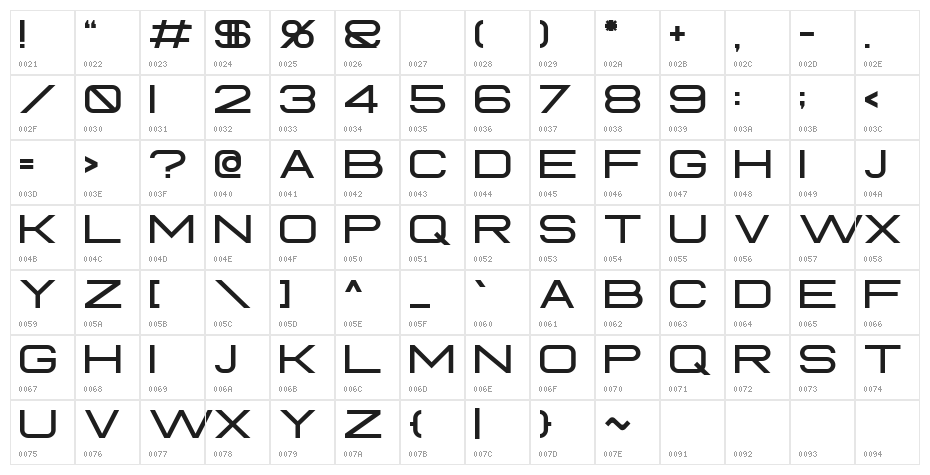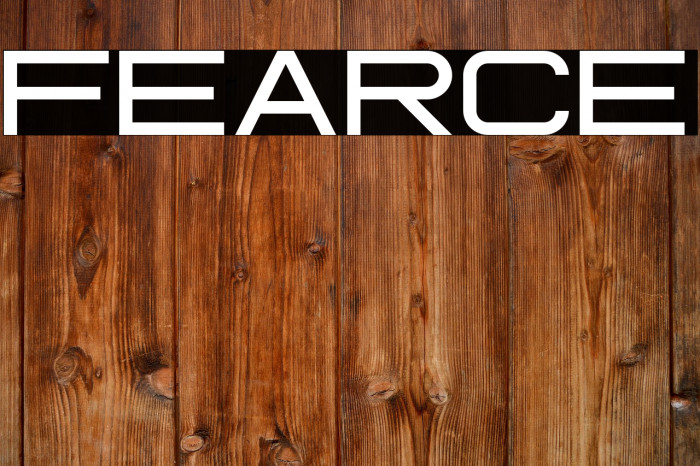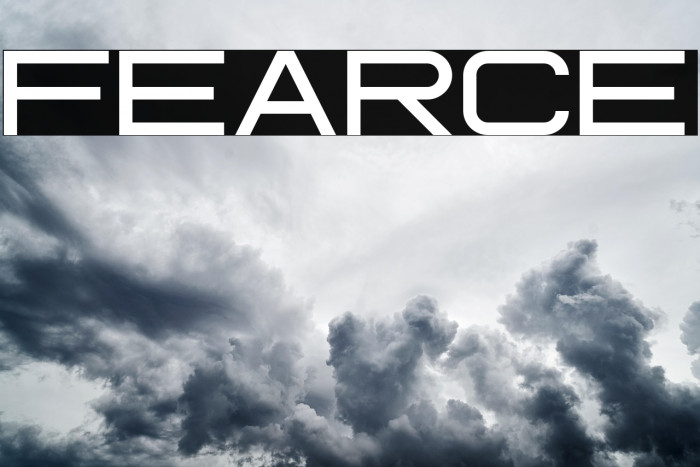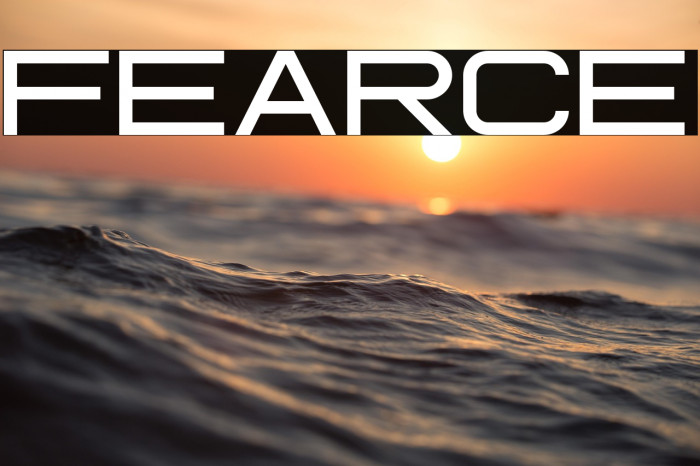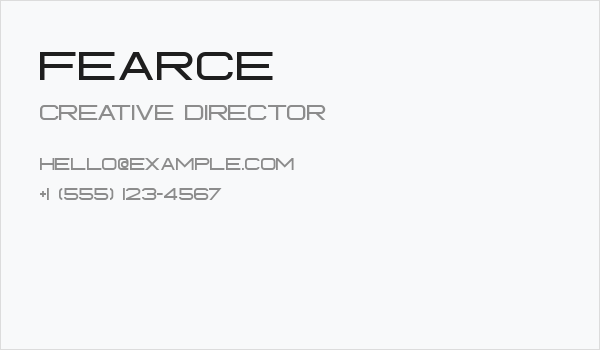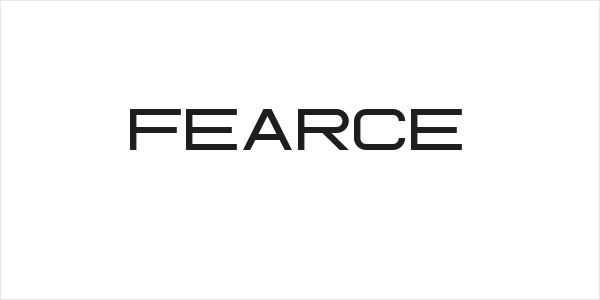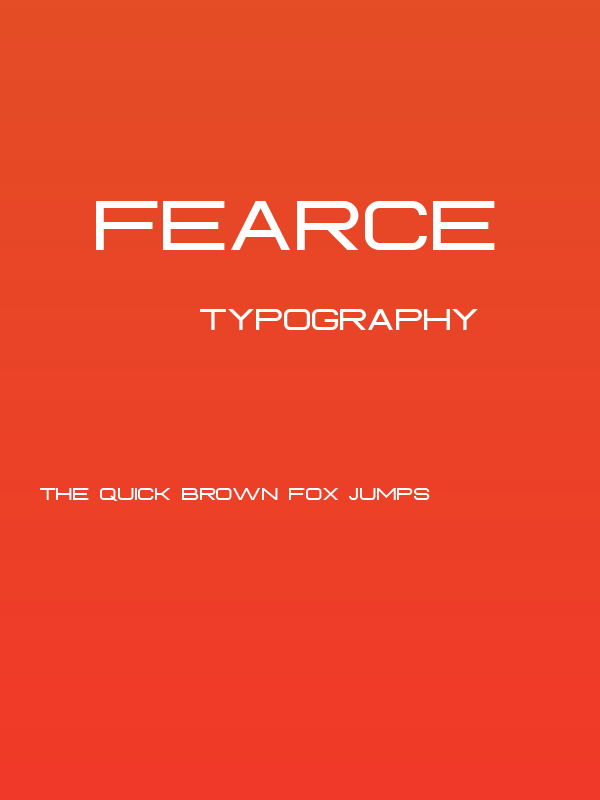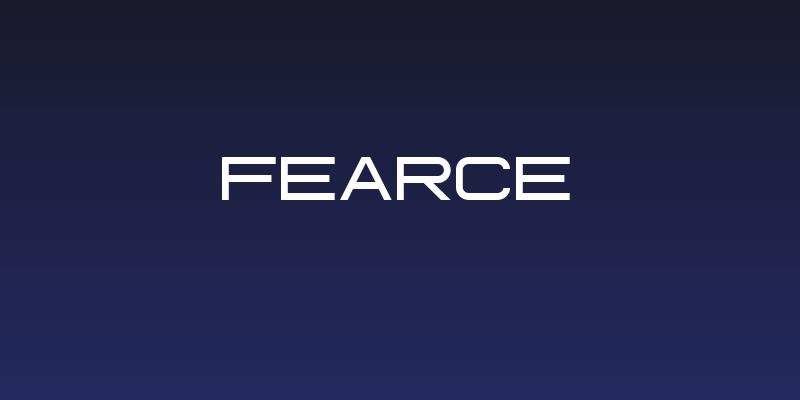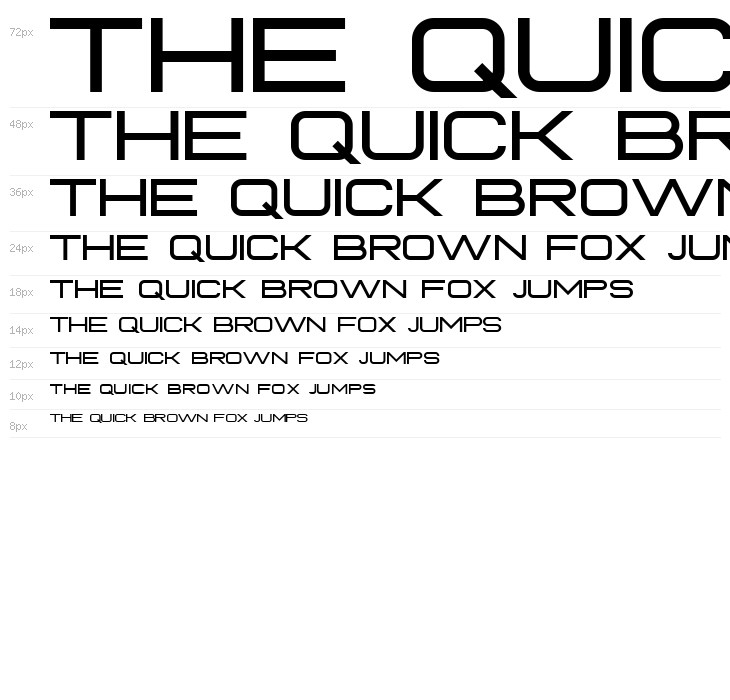
Fearce Font
Fearce Description
This font features a modern and geometric design with a distinct angular style. The characters are constructed with clean, straight lines and sharp edges, giving it a futuristic and technical appearance. The uppercase letters are uniform in height, while the lowercase letters maintain a consistent style, enhancing readability. The numerals are bold and easily distinguishable, with a unique zero that stands out. Special characters are designed to match the overall aesthetic, making this font suitable for a variety of applications where a contemporary and sleek look is desired.
FEARCE UPPERCASE
FEARCE LOWERCASE
FEARCE OTHER CHARS
| Use Case | Headlines, Logos, Digital interfaces |
| Proposed Projects | Ideal for technology branding, sci-fi themed projects, modern advertising, and digital interfaces. |